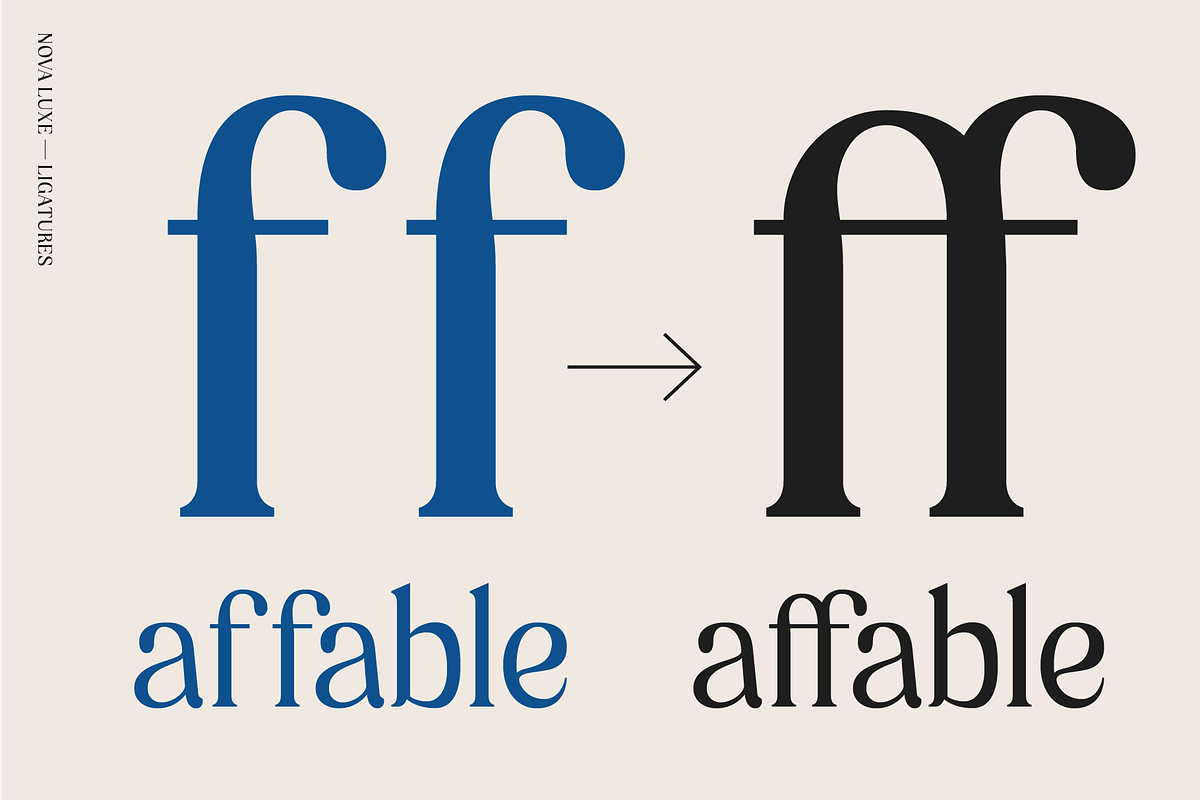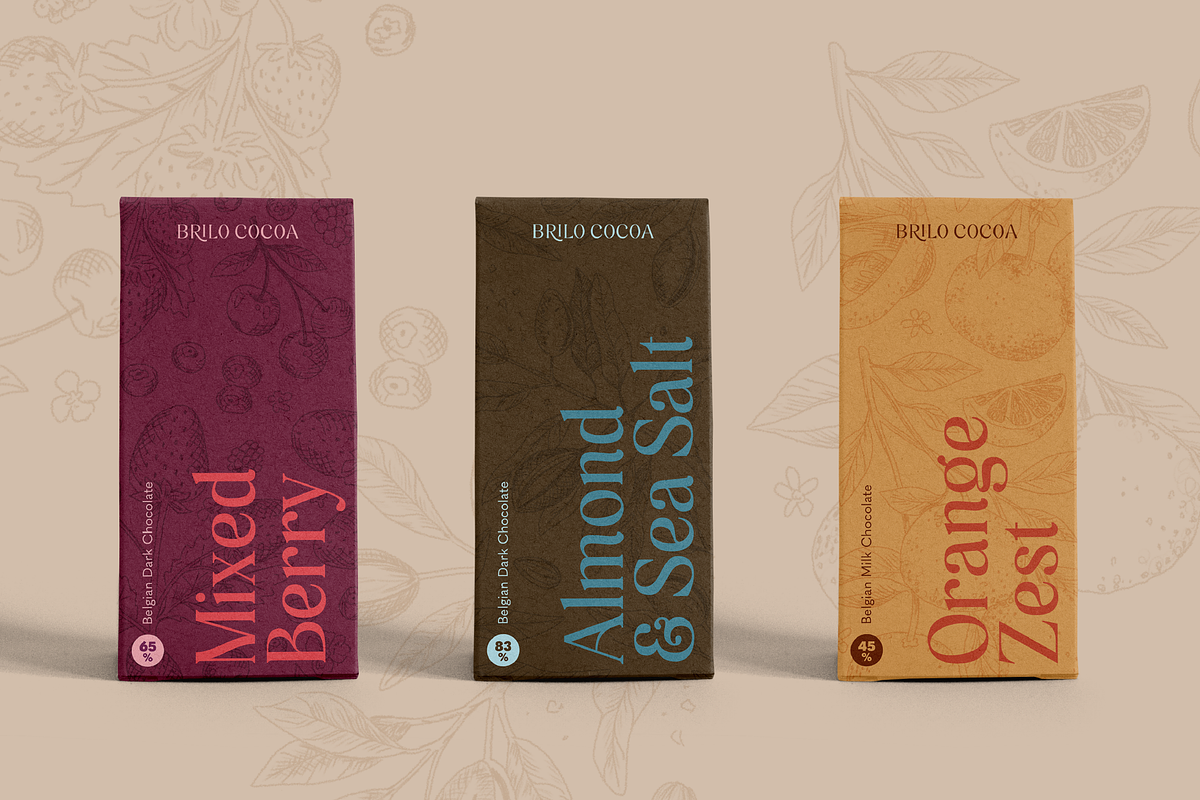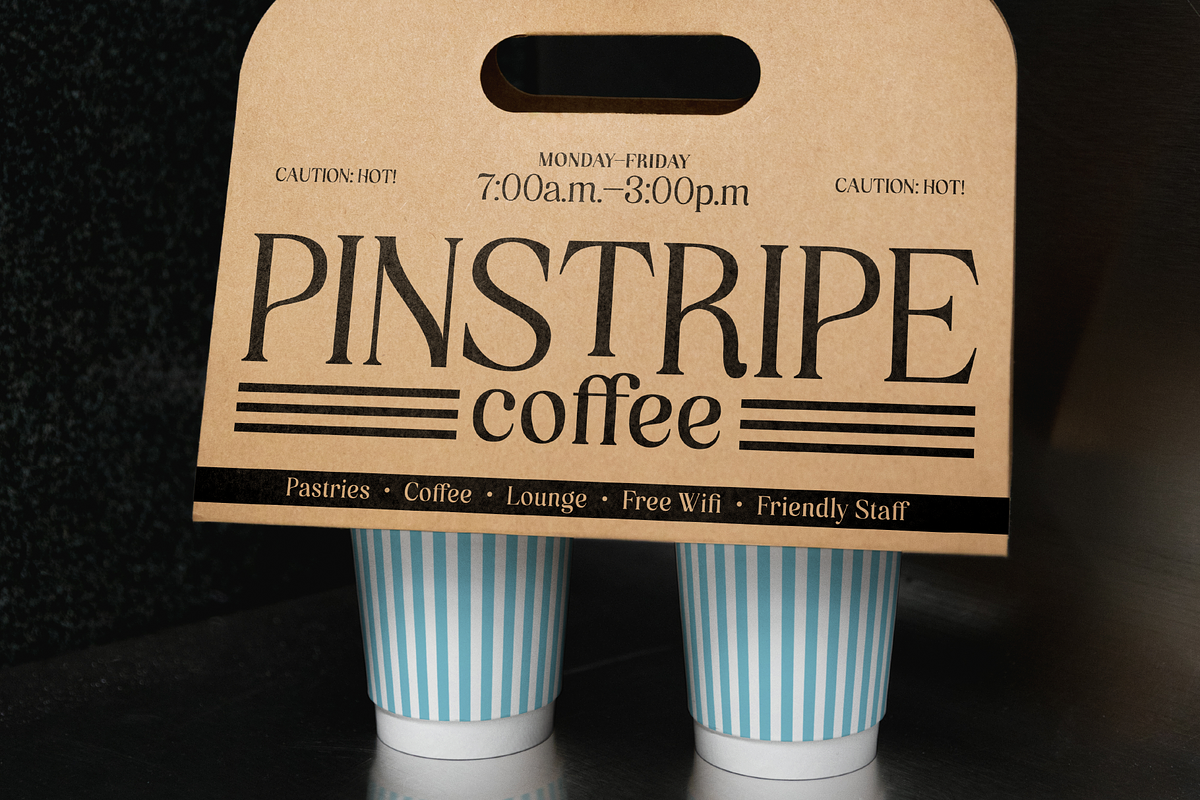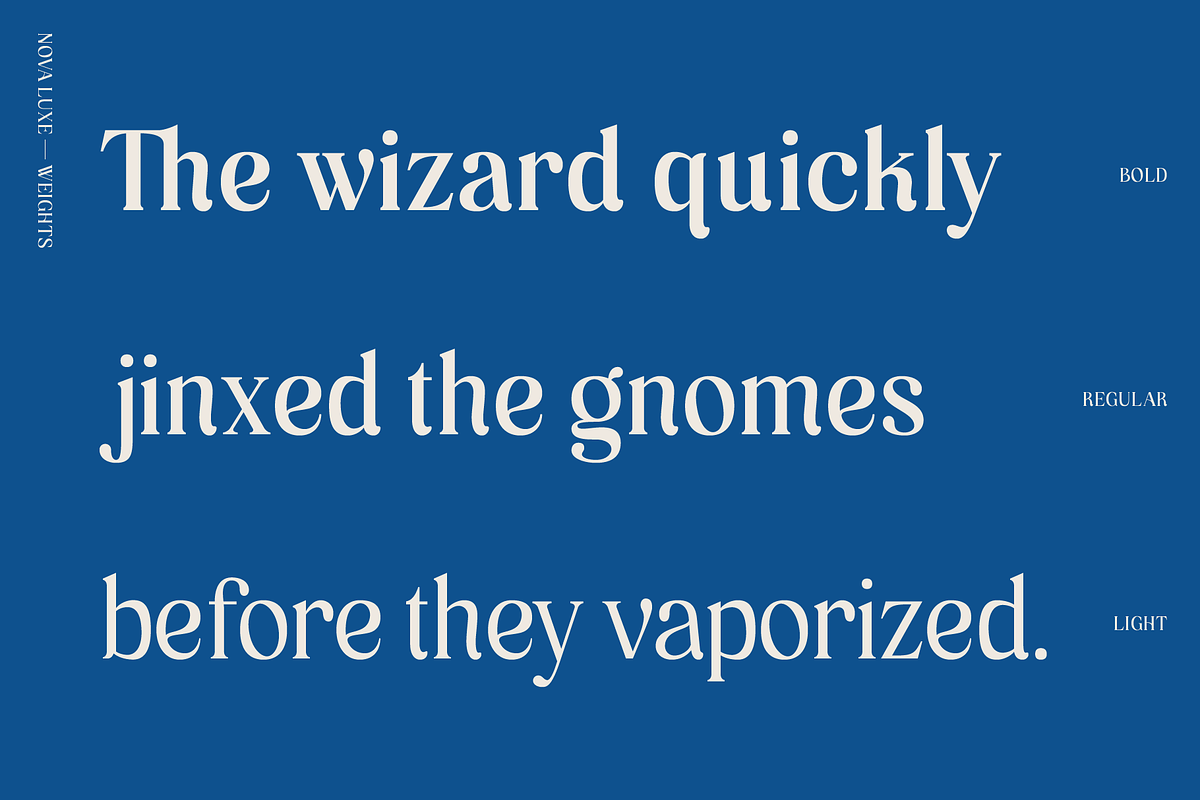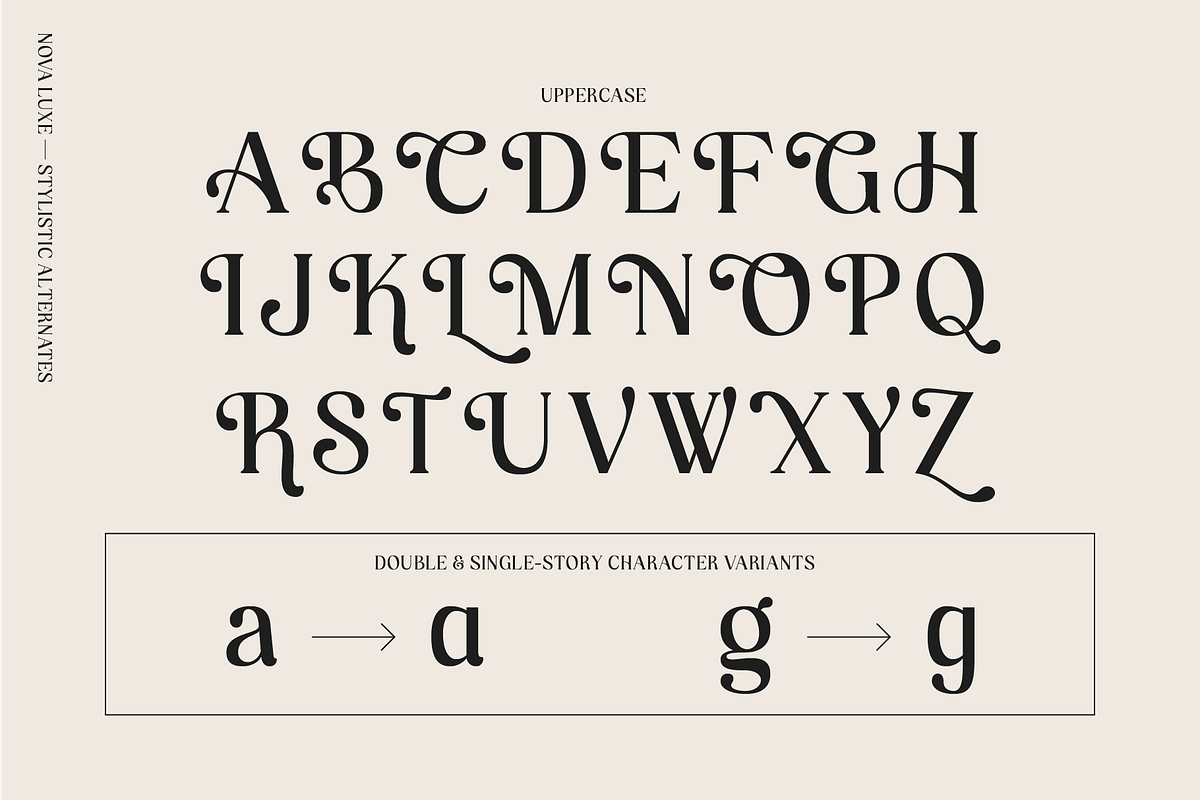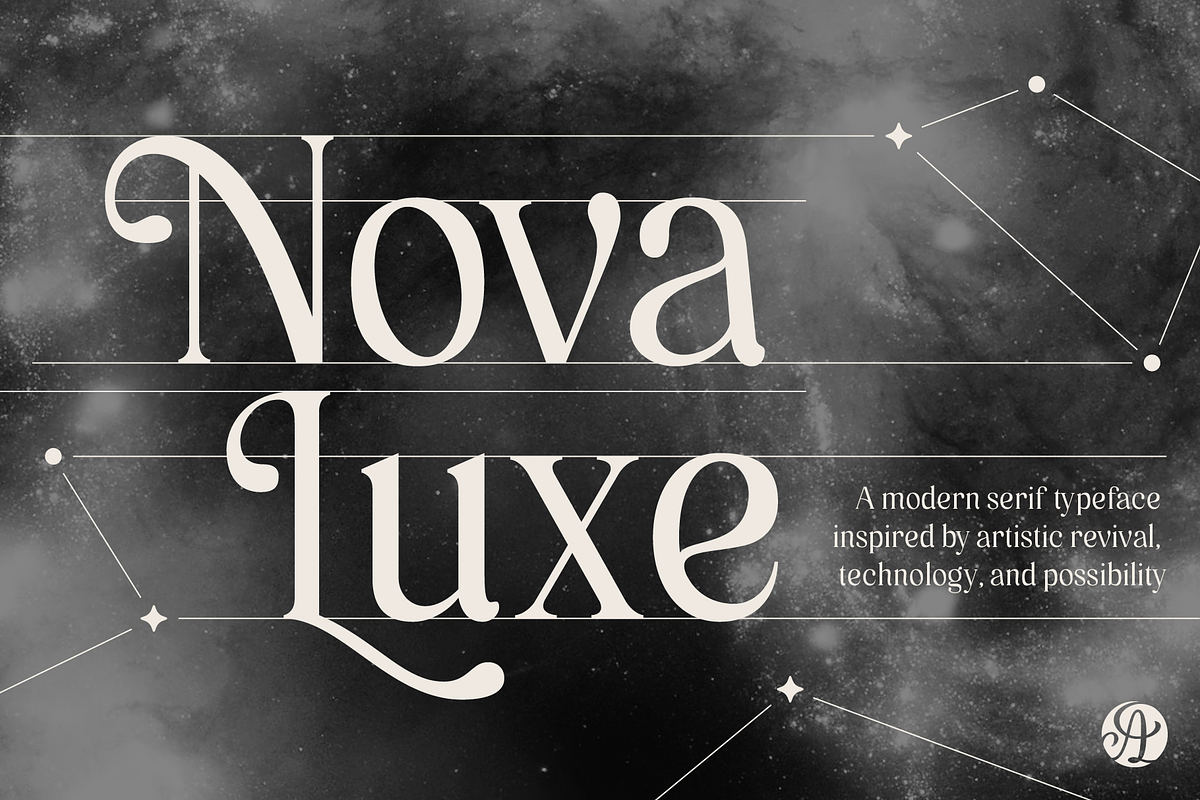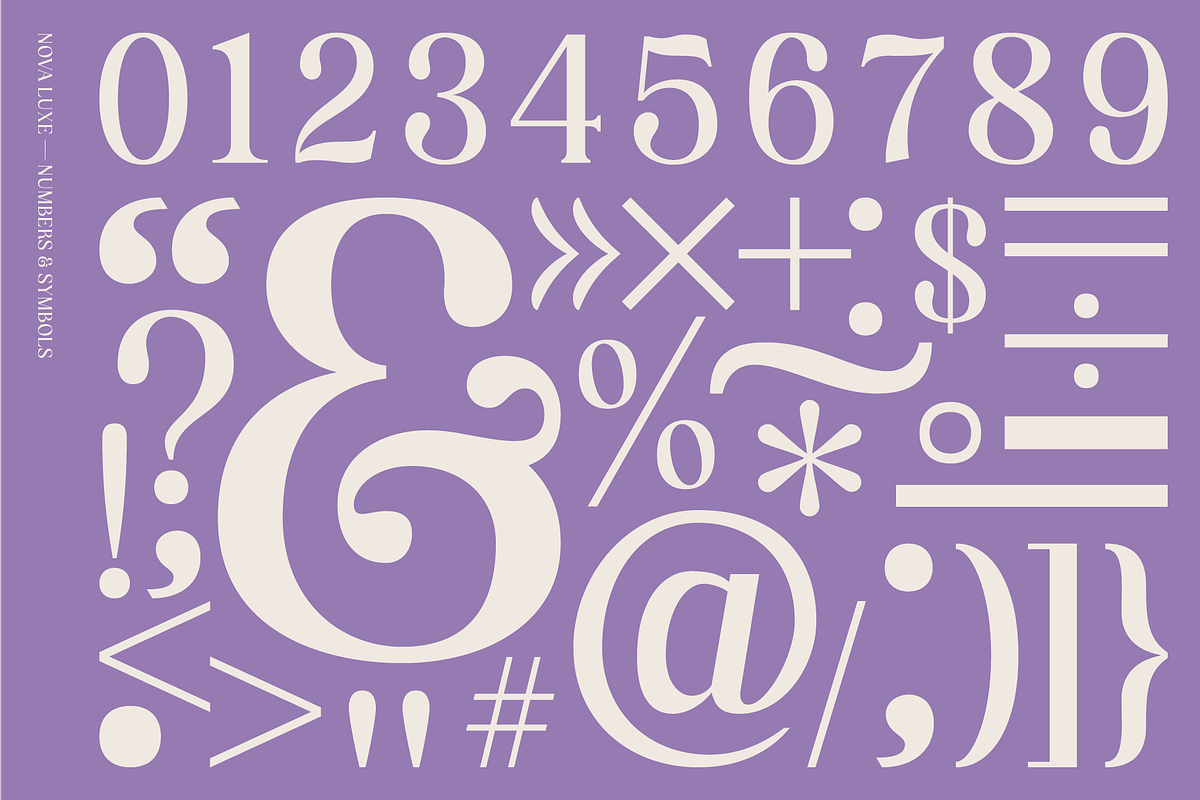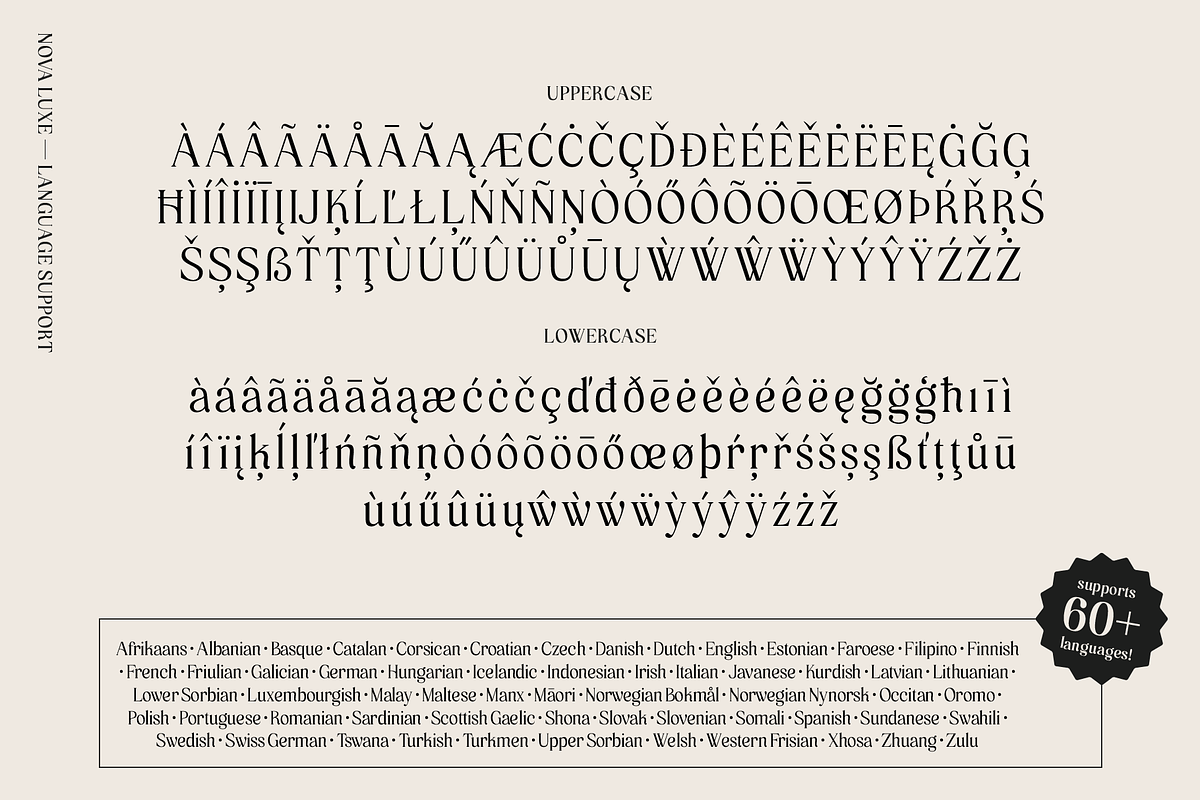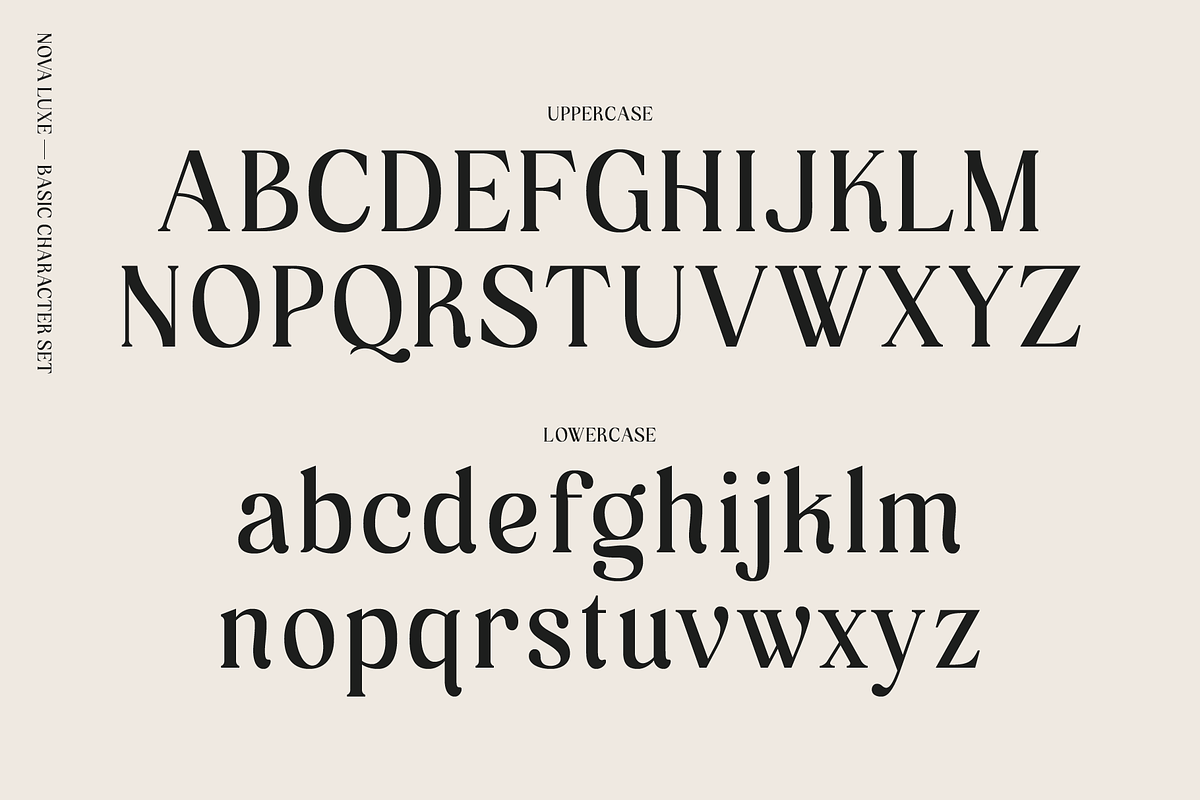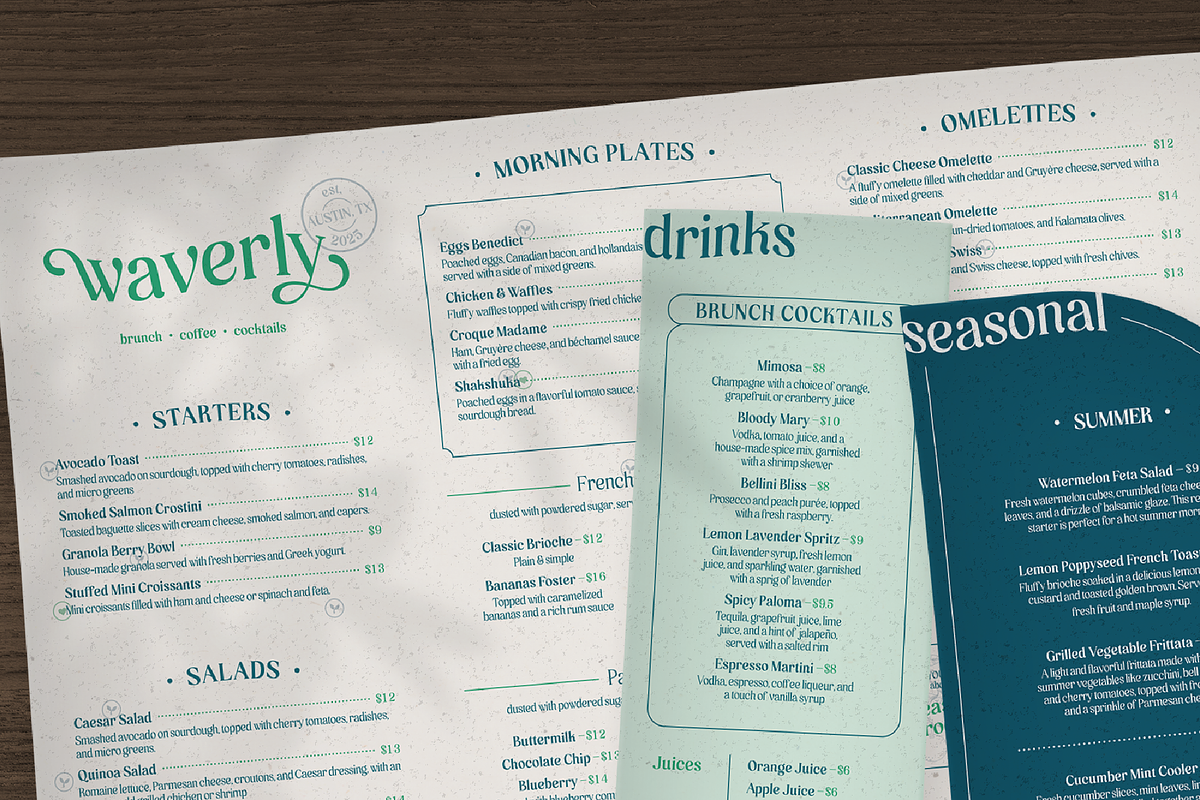
Nova Luxe
Nova Luxe is a serif typeface inspired by revival, technology, and possibility. It’s a product of a study creating letterforms through modern font software and archival letterpress techniques. The name is a cosmic reference alluding to a design process of research and constant discovery. Imbued with a subtle modern elegance, Nova Luxe maintains the timeless appearance of a traditional serif. It comprises three weights with ligatures, alternative characters, and diacritic marks for language support.
Designed For:
Branding and Logos: Create an elevated brand Identity with Nova Luxe’s quality craftsmanship.
Packaging and Print: Emphasize both style and legibility on packaging and printed materials.
Invitations and Stationary: Perfect for featuring on invitations, greeting cards, and other stationary for a modern simplicity.
Weights: Light, Regular, and Bold (may be purchased individually)
OpenType Features: Kerning, Ligatures, Stylistic Sets, Uppercase Character Variants, Fractions